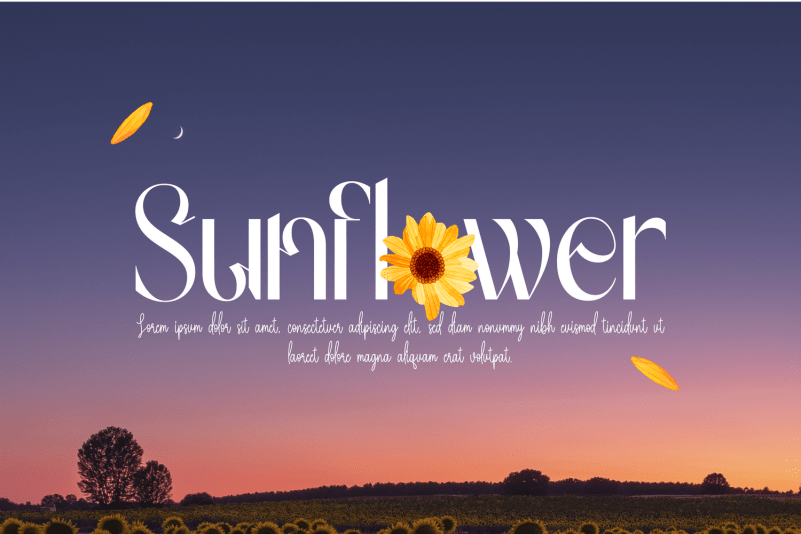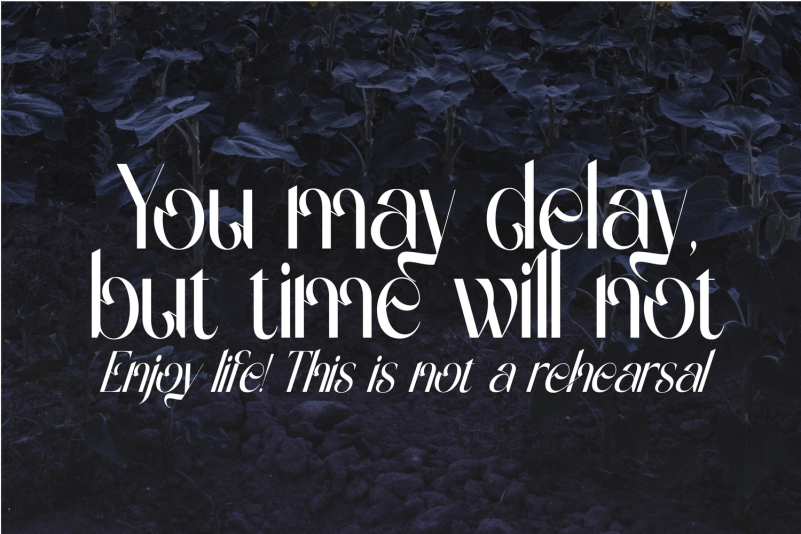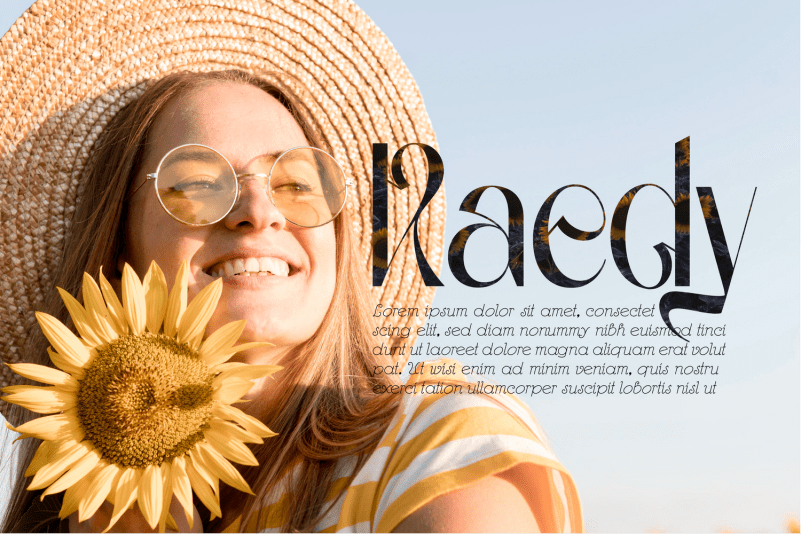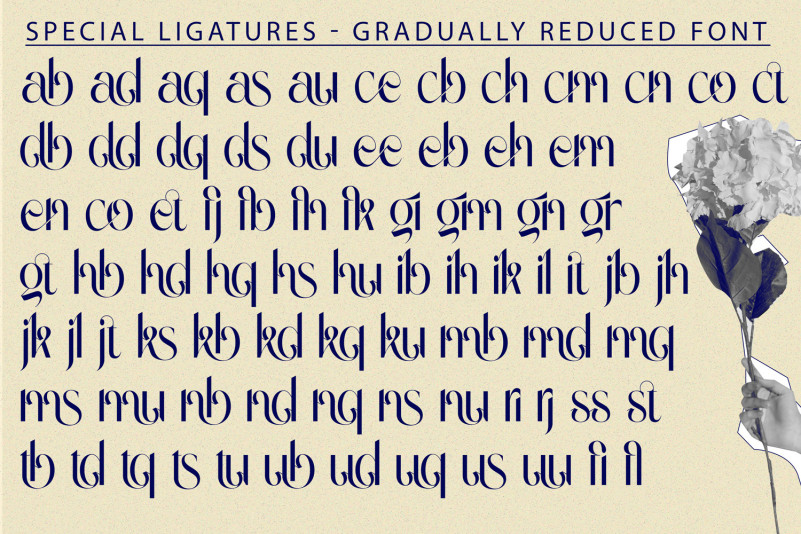
Gradually Reduced Font – Modern display serif font, it’s a stylish and modern display serif, best used as a display for headings, logos, branding, magazines, product packaging and invitations. This font equipped with Ligature and many Alternates and come with clean lines and smooth curves give any project an extra touch of class.
To make it look more unique, here we prepared some ligatures:
ab ad aq as au ce cb ch cm cn co ct db dd dq ds du ee eb eh em en co et fj fb fh fk gi gm gn gr gt hb hd hq hs hu ib ih ik il it jb jh jk jl jt ks kb kd kq ku mb md mq ms mu nb nd nq ns nu ri rj ss st tb td tq ts tu ub ud uq us uu fi fl